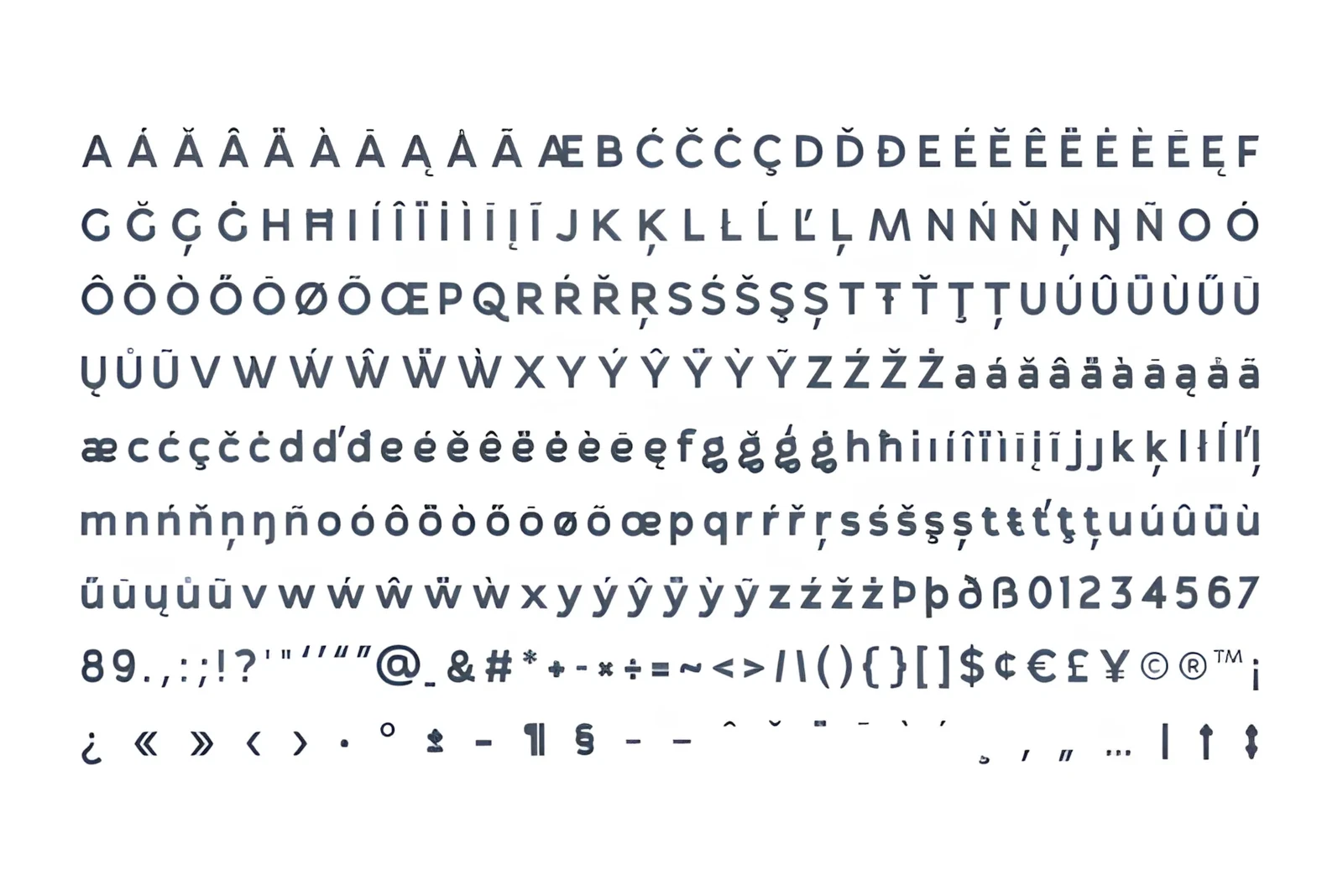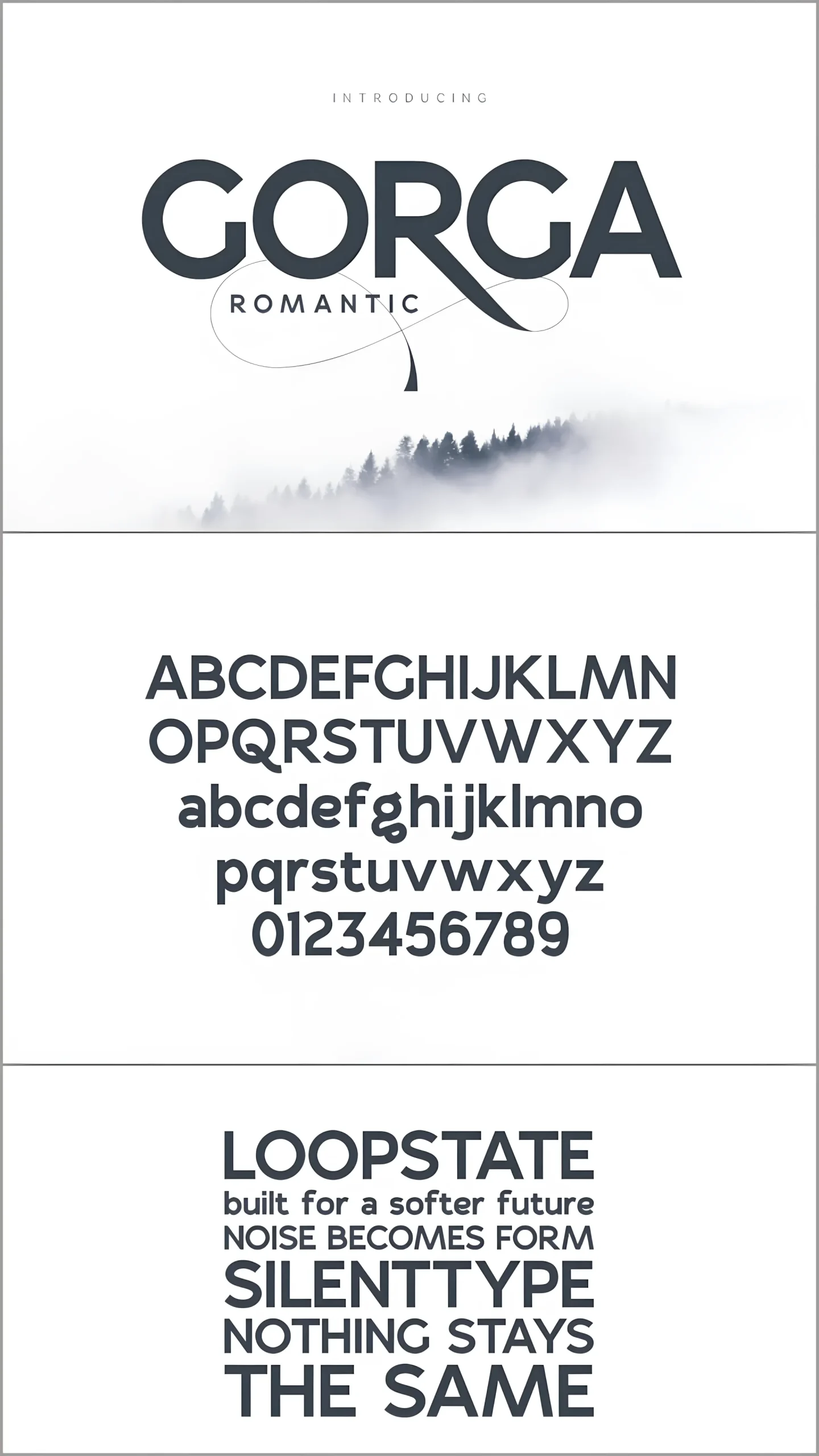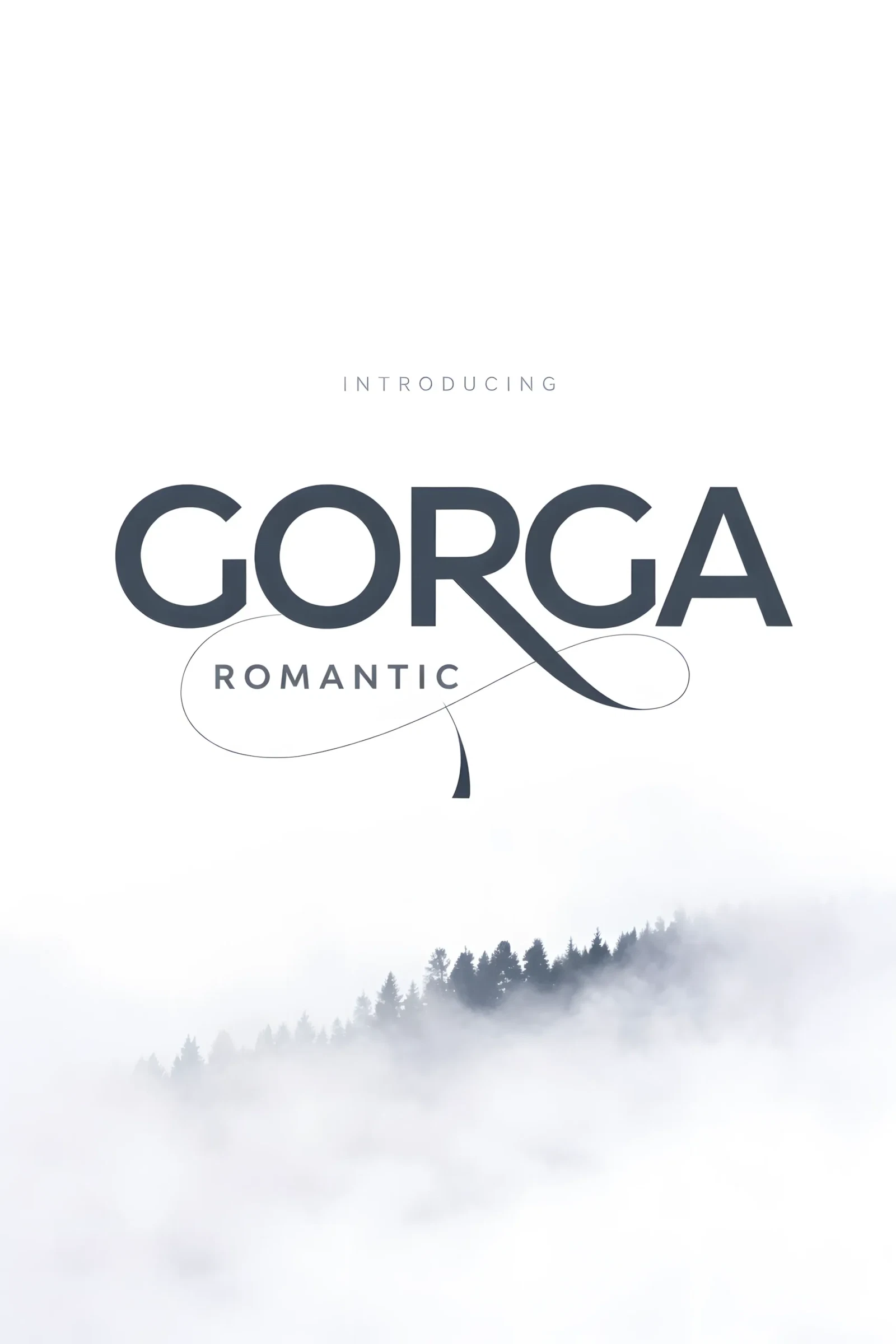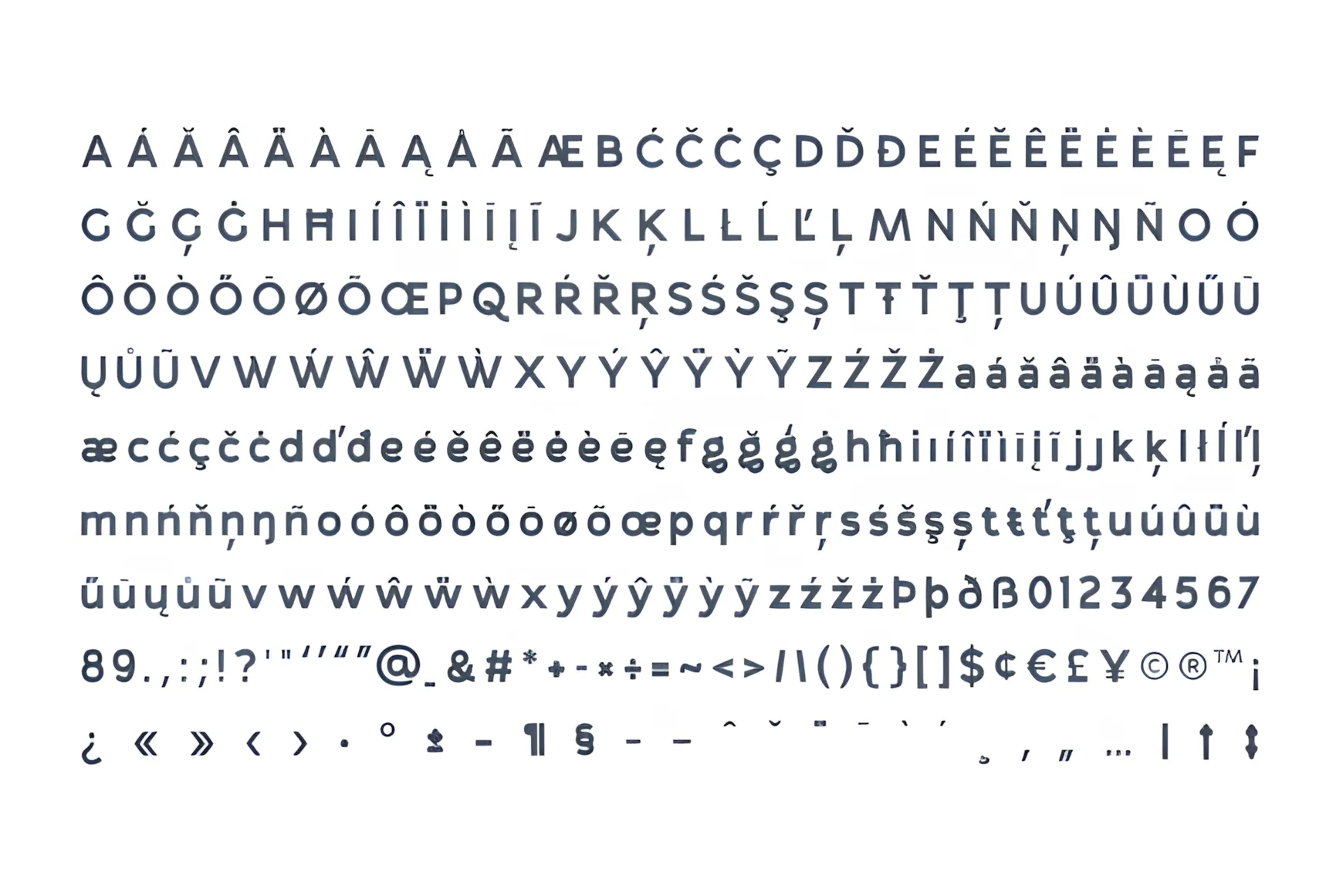
Some fonts are designed to feel strong. Others are designed to feel emotional. Gorga Romantic Font manages to do both at once. It is a modern sans-serif typeface that combines bold geometric structure with a refined romantic detail, creating a distinctive balance between stability and elegance.
This font is created for designers who want clean typography but still need a memorable visual accent that sets their work apart.
A Modern Sans Serif With a Romantic Twist
At its core, Gorga Romantic is a clean, wide-proportioned sans-serif font. The letterforms are bold, stable, and contemporary, giving text a confident and professional foundation.
What makes the font unique is its signature detail: an elongated, calligraphic tail on the uppercase “R”. This thin, flowing swash sweeps beneath surrounding letters, adding a soft, romantic contrast to the otherwise strong structure.
This combination creates a typeface that feels:
- modern but expressive
- clean yet sophisticated
- structured with a hint of elegance
The result is a font that feels intentional rather than decorative.
Visual Character and Typography Feel
Gorga Romantic balances contrast extremely well. Heavy sans-serif stems provide visual strength, while the delicate flourish adds refinement without overpowering the design.
The font feels:
- contemporary and premium
- elegant without being ornamental
- bold without being harsh
It performs especially well in uppercase settings, where the contrast between structure and flourish becomes most visible. The typography feels polished and confident, ideal for high-end visual communication.
Where Gorga Romantic Works Best
Fashion and Lifestyle Branding
Gorga Romantic is a natural fit for brands that operate at the intersection of modern design and elegance. It works especially well for:
- fashion labels
- lifestyle brands
- beauty and cosmetic packaging
- premium product branding
The romantic detail adds personality, while the clean structure maintains professionalism.
Wedding and Event Design
Because of its elegant accent, the font is also well suited for:
- modern wedding invitations
- event stationery
- luxury celebration branding
It offers a refined alternative to traditional script fonts, keeping designs contemporary rather than overly classic.
Editorial and Header Design
In editorial layouts, Gorga Romantic performs best as a display font. It works well for:
- magazine headers
- section titles
- cover typography
- promotional visuals
The font draws attention naturally without relying on excessive decoration.
Because the design balances modern clarity with elegant detail, it remains useful across a wide range of projects instead of being limited to a single niche.
Why Fonts With Subtle Flourishes Stand Out
Fonts that include a single, well-designed decorative element often feel more memorable than fully ornamental typefaces. Gorga Romantic succeeds because the flourish is controlled and purposeful.
It adds identity without sacrificing readability — a combination that works especially well in premium branding and editorial design.
Who Gorga Romantic Font Is Best For
Gorga Romantic is especially well suited for:
- branding and identity designers
- fashion and lifestyle brands
- editorial designers
- wedding and event creators
- anyone seeking a modern font with elegant personality
It works best in projects where typography needs to feel both confident and refined.
Final Perspective
Gorga Romantic Font is built on contrast — strength and softness, structure and flow. Its bold sans-serif foundation combined with a refined romantic flourish creates a typeface that feels modern, expressive, and premium.
For designers looking to add elegance to contemporary branding without sacrificing clarity, Gorga Romantic offers a distinctive and versatile typographic solution.